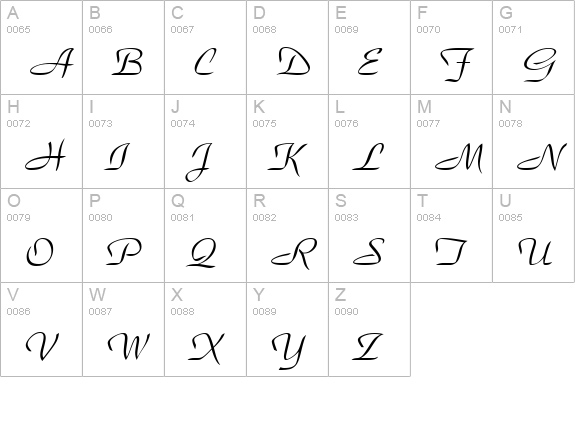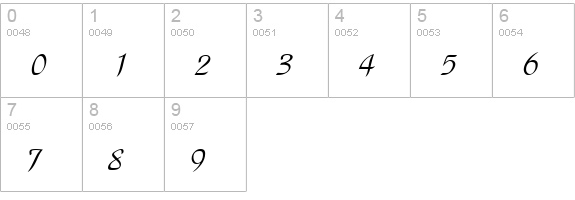
ParkAvenue-Regular Font Details
ParkAvenue-Regular is the standard, neutral variant in the ParkAvenue typeface family \xE2\x80\x94 well suited to general body text, paragraphs, and standard typographic work.
ParkAvenue-Regular is a stylish and elegant font that exudes sophistication and class. With its sleek lines and modern design, this font is perfect for adding a touch of luxury to any project. Whether you're creating a logo, designing a website, or crafting a beautiful invitation, ParkAvenue-Regular is sure to make a statement. The best part? ParkAvenue-Regular is completely free to download at FontsMarket.com. That's right, you can enhance your designs with this stunning font without spending a dime. So why wait? Head over to FontsMarket.com now and elevate your projects with the timeless beauty of ParkAvenue-Regular.